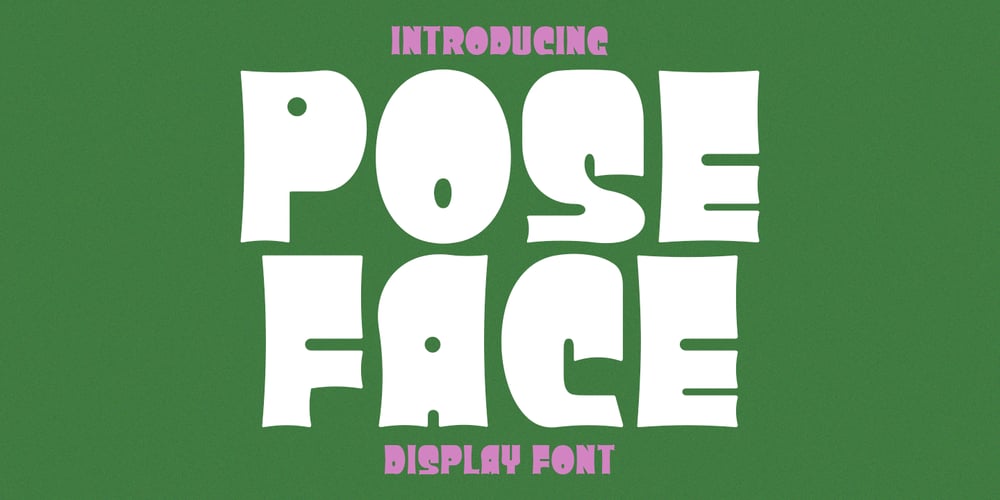
MC Poseface Font Family was designed by Gilang Maulana and published by Maulana Creative. MC Poseface contains 1 styles and family package options. Poseface is an experimental display sans serif fat font. With heavy stroke and fun character. To give you an extra creative work. Poseface font support multilingual more than 100+ language. This font is good for logo design, Social media, Movie Titles, Books Titles, a short text even a long text letter and good for your secondary text font with sans or serif. Make a stunning work with Poseface font.Cheers,Maulana Creative